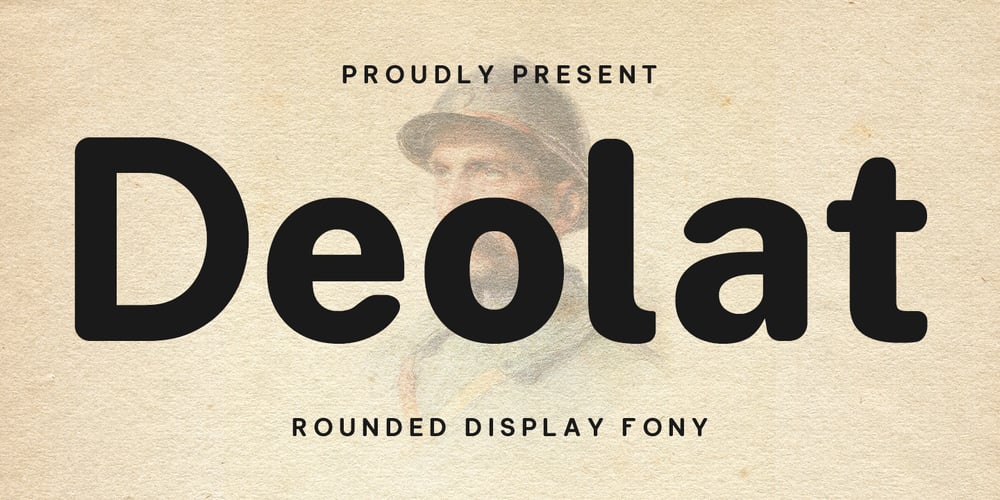
MC Deolat Font Family was designed by Gilang Maulana and published by Maulana Creative. MC Deolat contains 1 styles and family package options. Deolat is a rounded sans serif font. With bold stroke, fun character with a bit of ligatures. To give you an extra creative work. Hoglar font support multilingual language. This font is good for logo design, Social media, Movie Titles, Books Titles, a short text even a long text letter and good for your secondary text font with sans or serif. Make a stunning work with Deolat font.